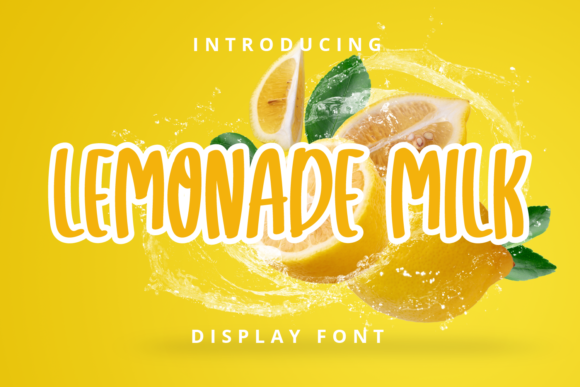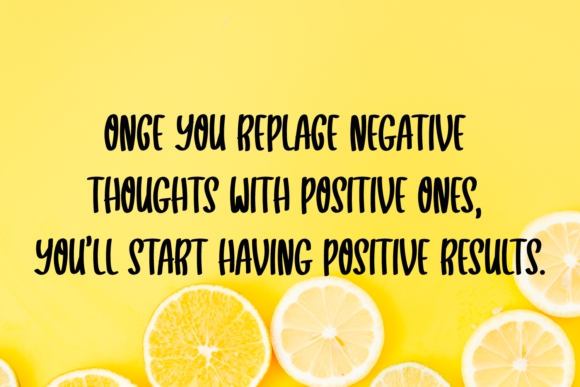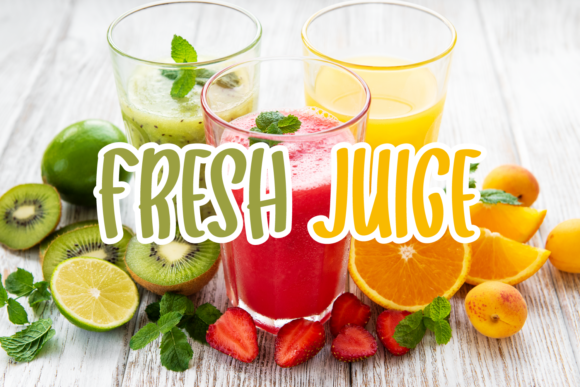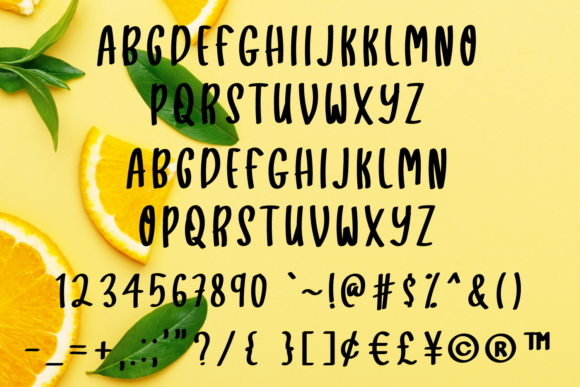
Lemonade Milk Font
About Lemonade Milk Font
Lemonade Milk is a simple, quirky and adaptable handwritten font. Its informal style and casual vibe will make this font a go-to choice for each of the creations that require a relaxed touch.